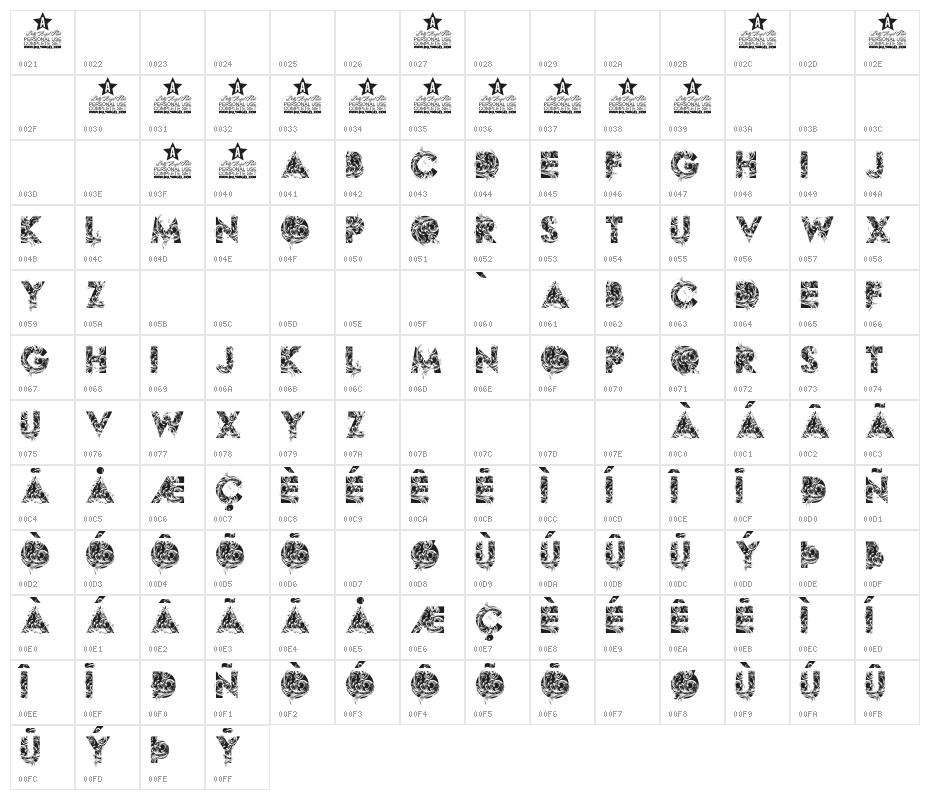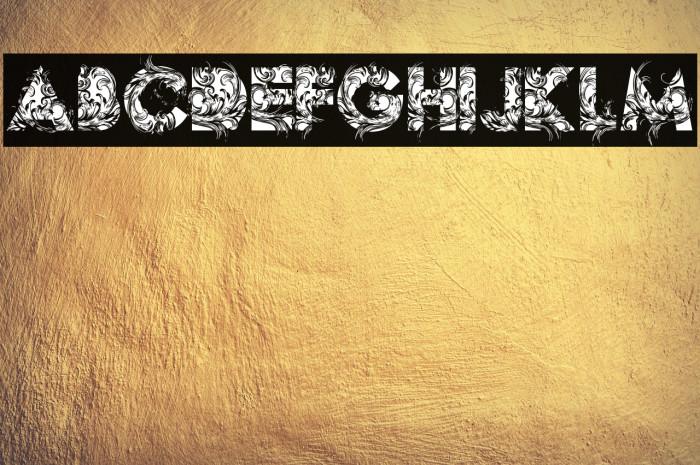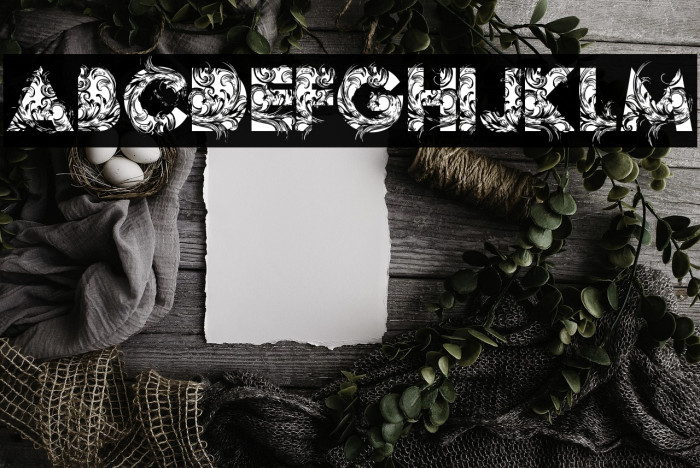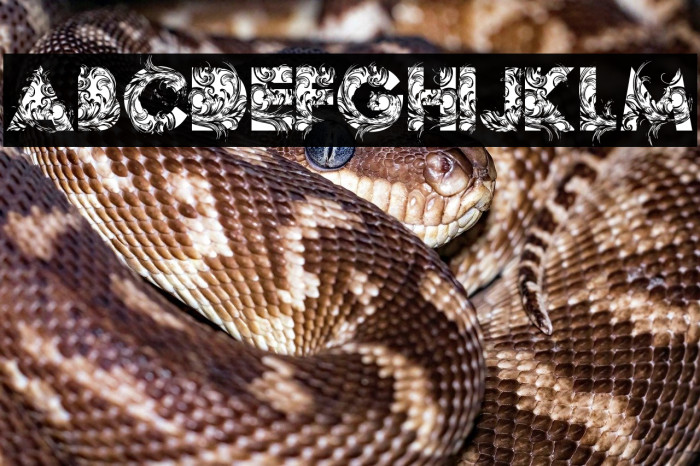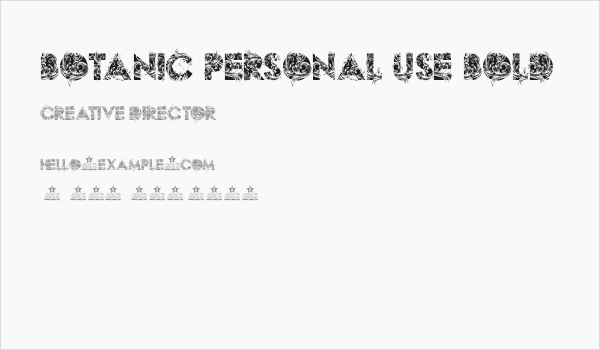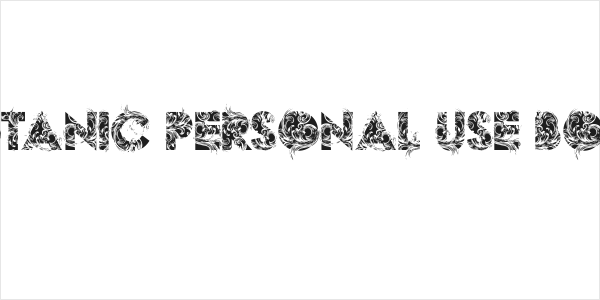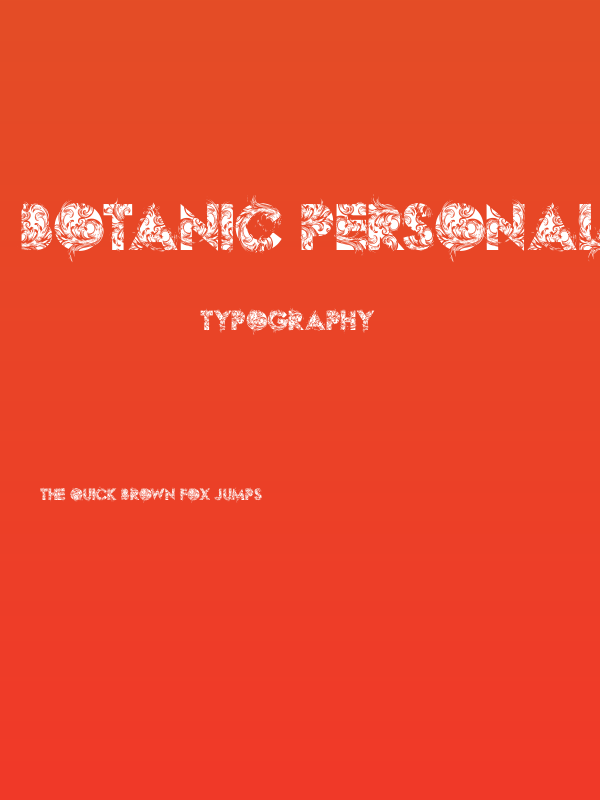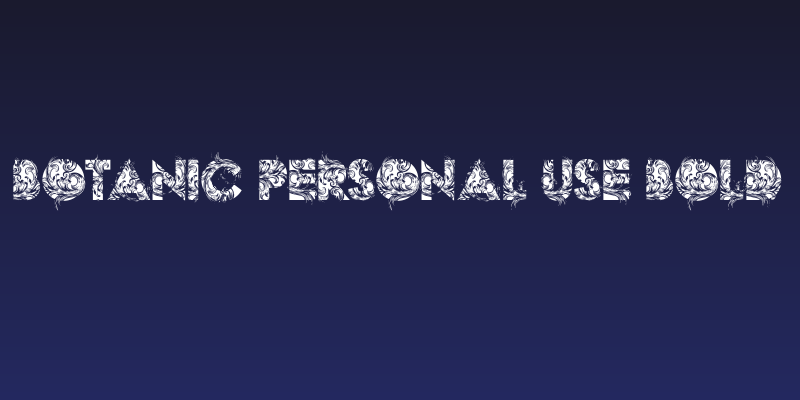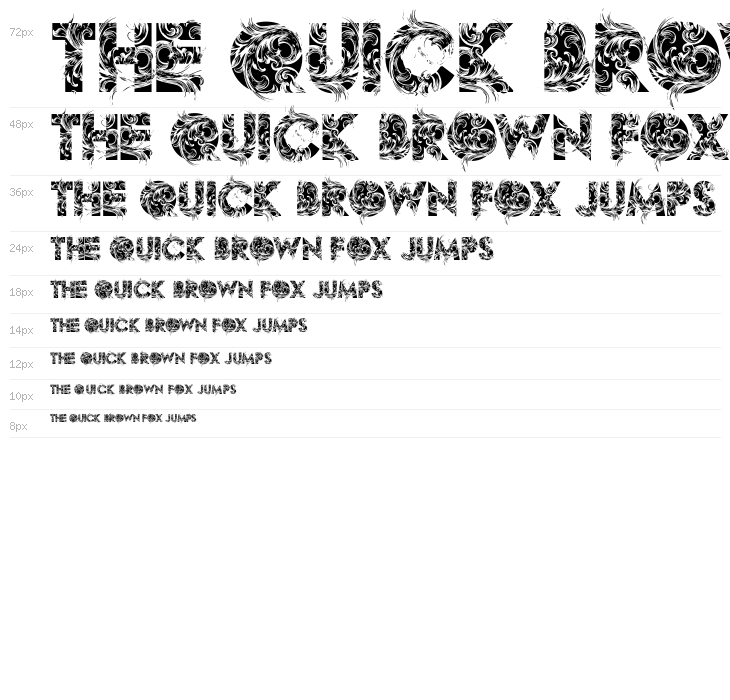
BOTANIC PERSONAL USE Bold Font
BOTANIC PERSONAL USE Bold Description
This font features an intricate, decorative style with elaborate floral and botanical elements integrated into each character. The uppercase letters are bold and striking, with detailed embellishments that create a sense of movement and elegance. The design is highly ornamental, making it ideal for projects that require a touch of sophistication and artistry. The font's unique style is reminiscent of vintage botanical illustrations, offering a blend of natural beauty and artistic flair. Its boldness ensures that it stands out, while the intricate details invite closer inspection, making it perfect for eye-catching designs.
| Use Case | Headlines, Logos, Artistic projects |
| Proposed Projects | Ideal for wedding invitations, luxury branding, artistic posters, and decorative headlines. |